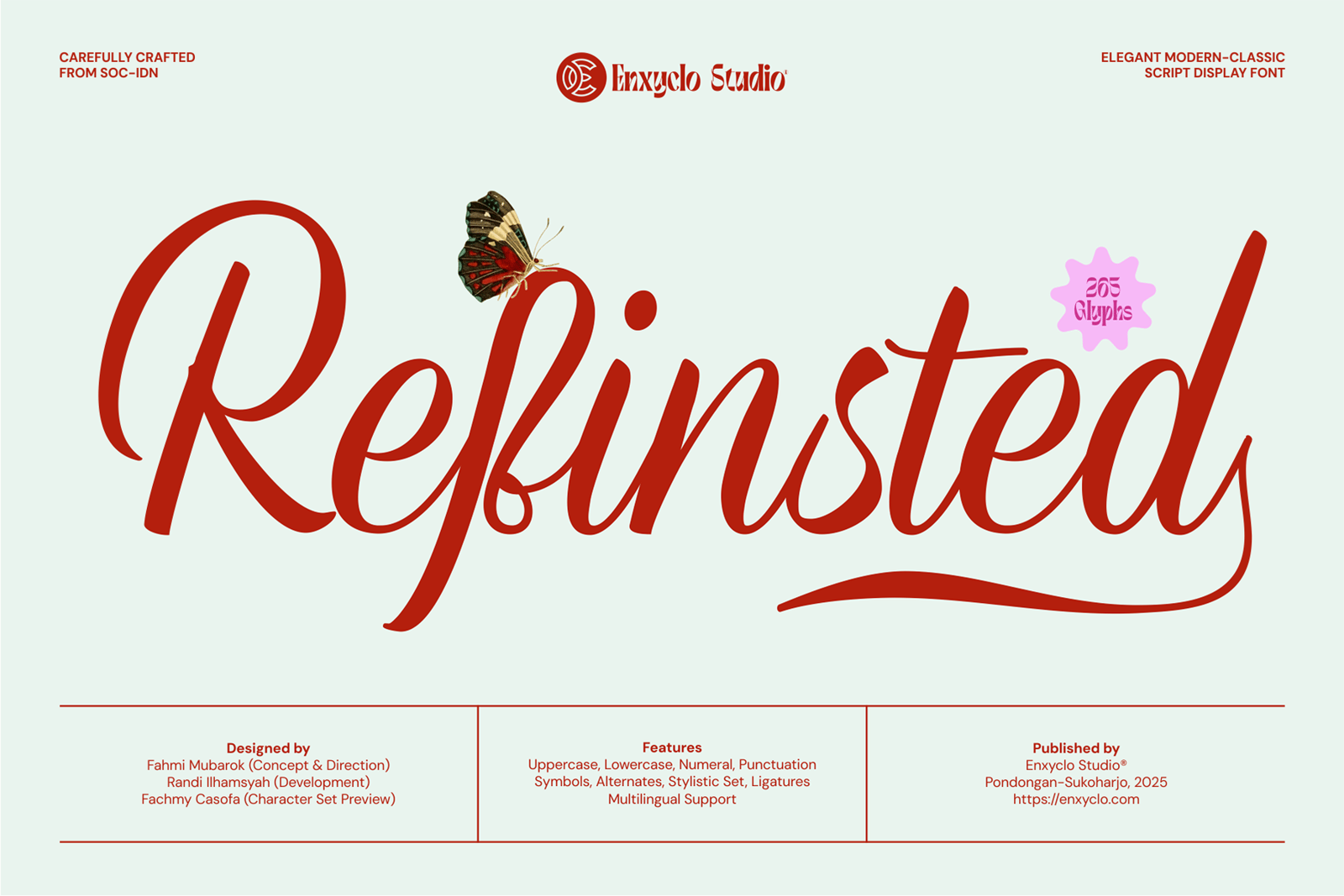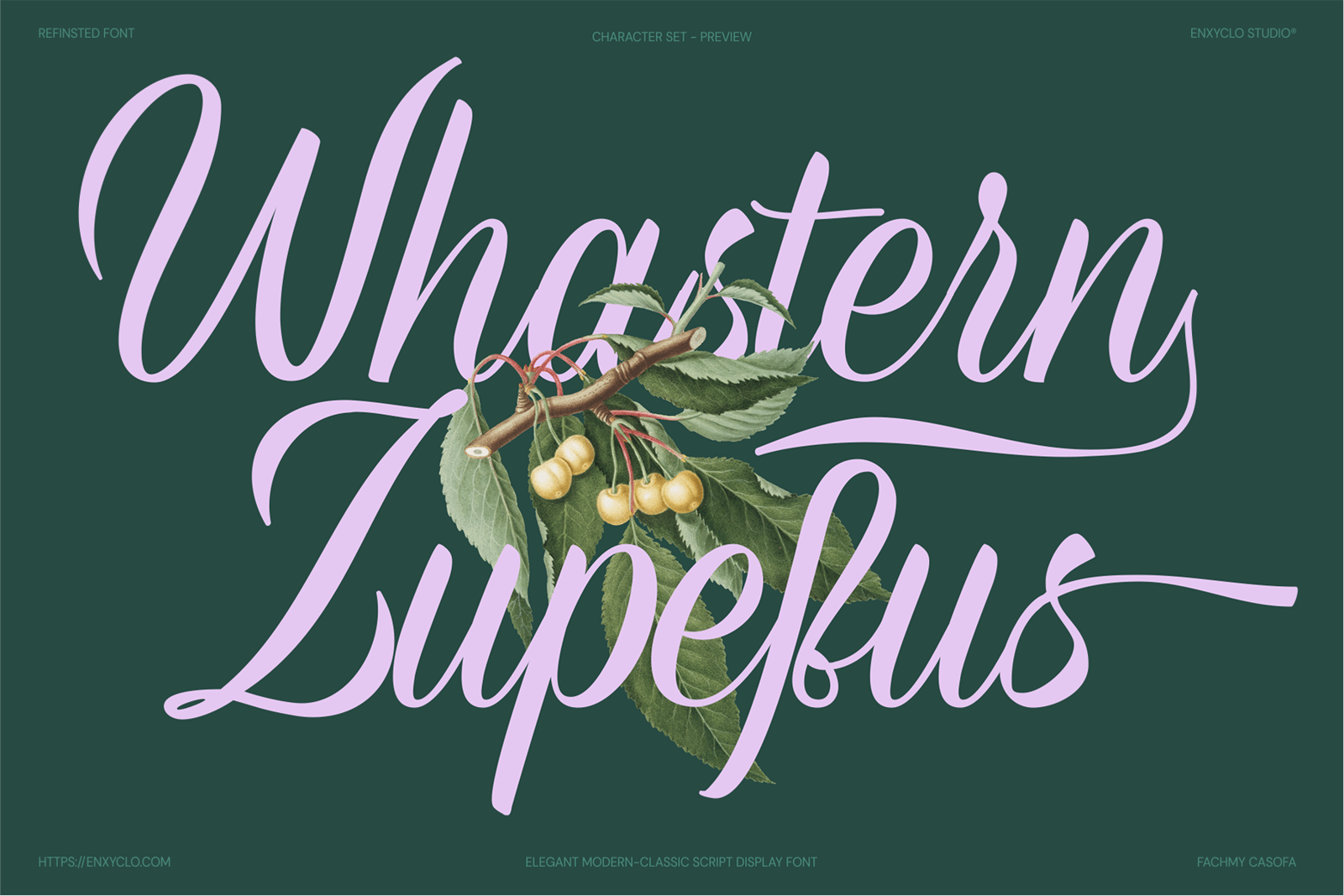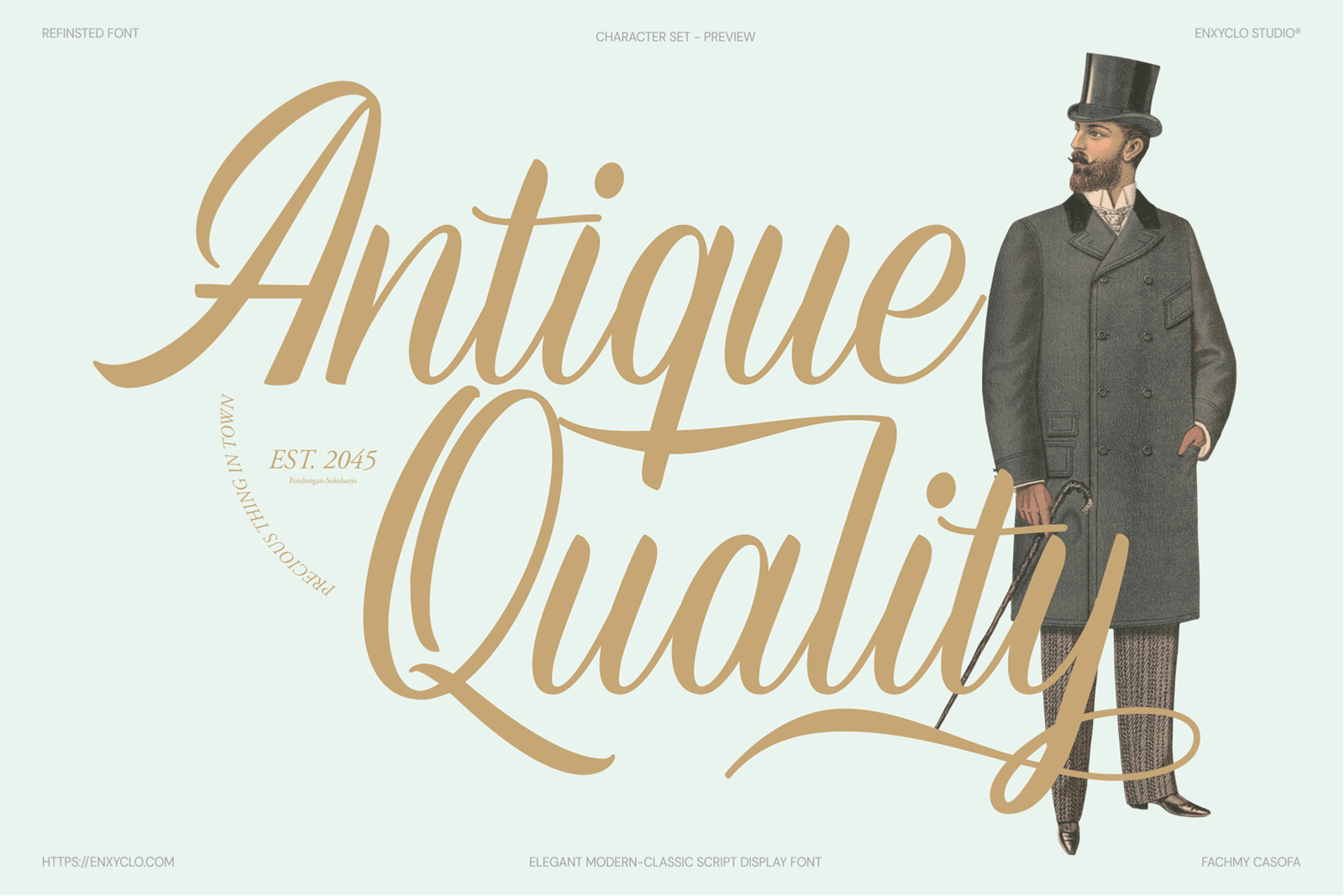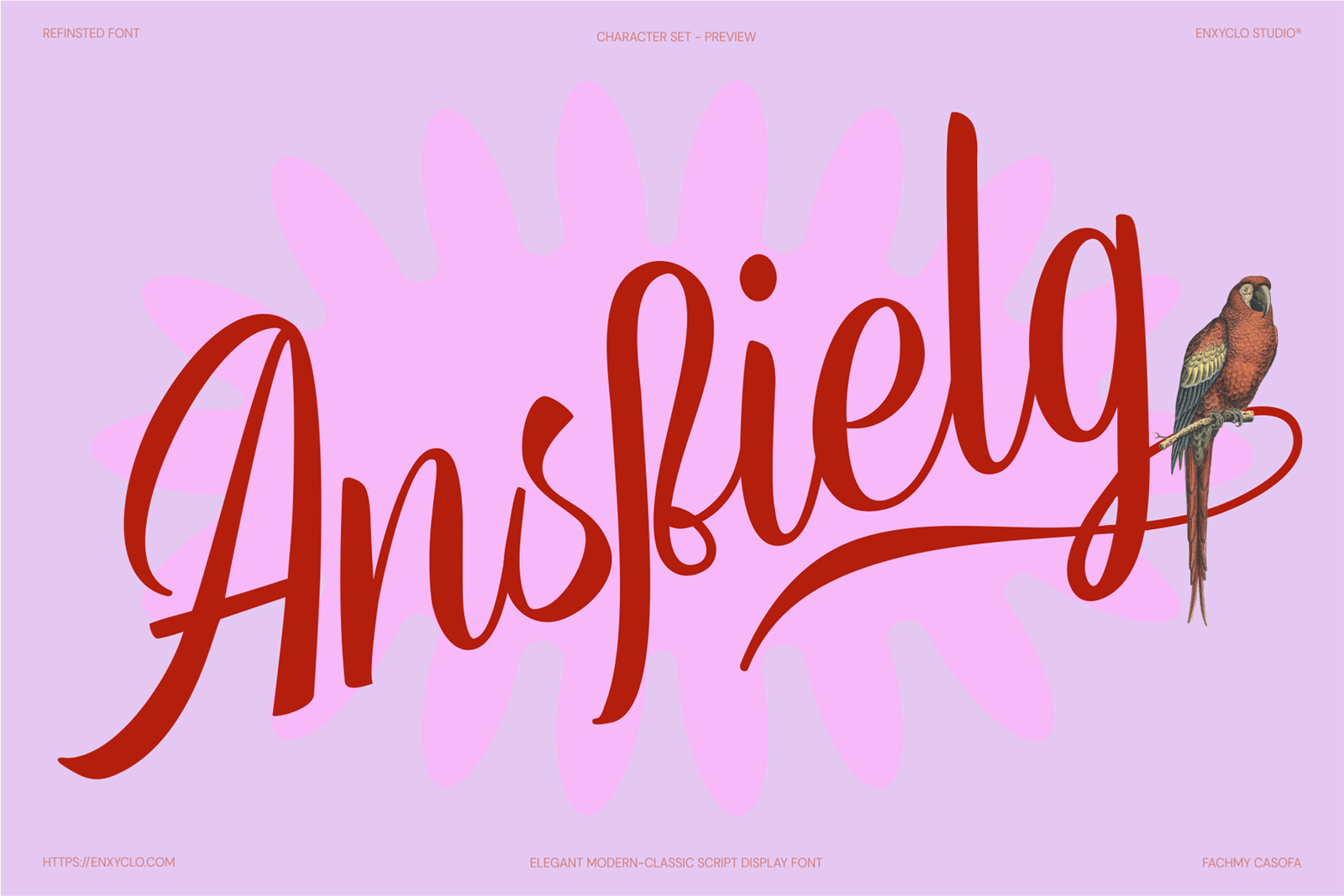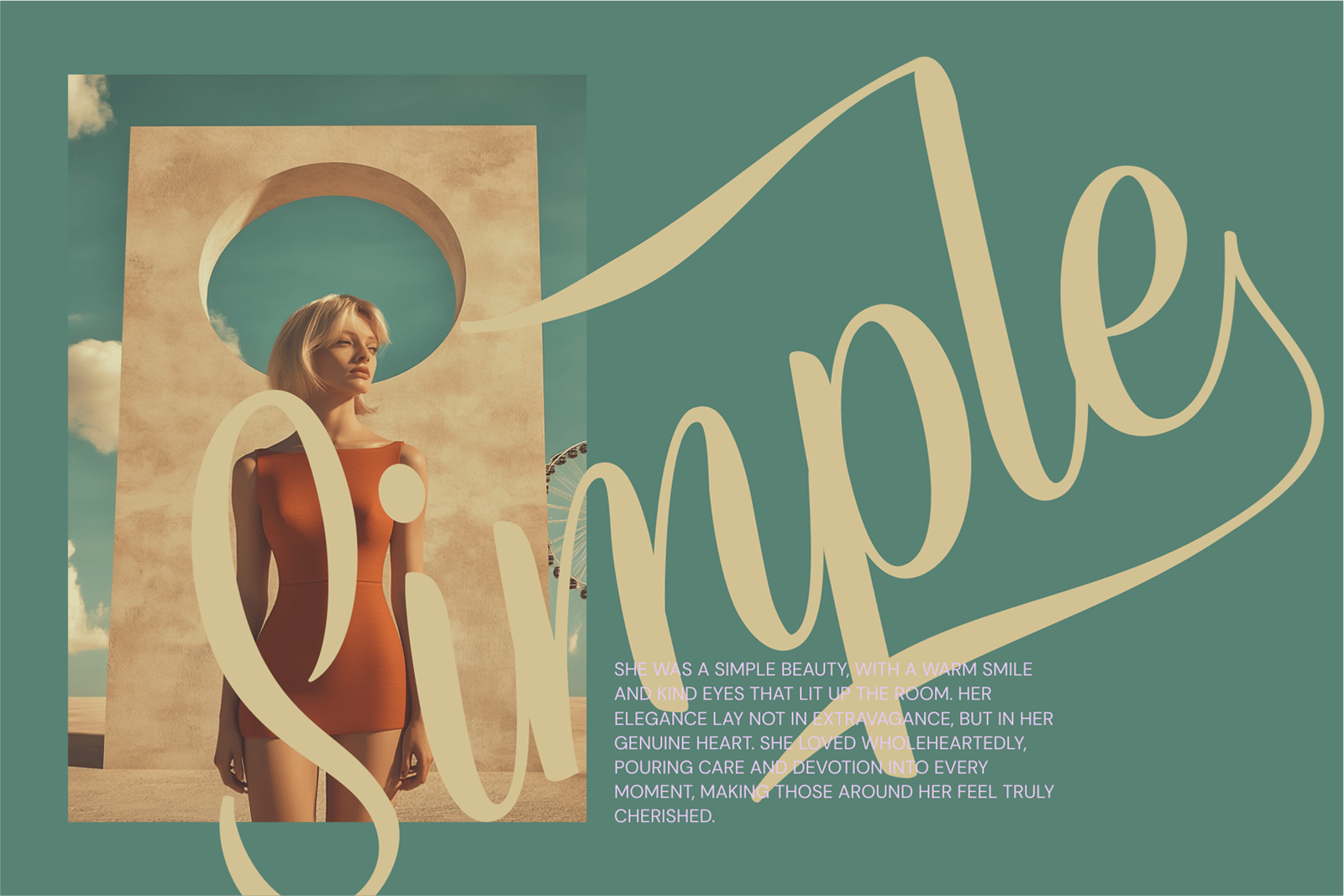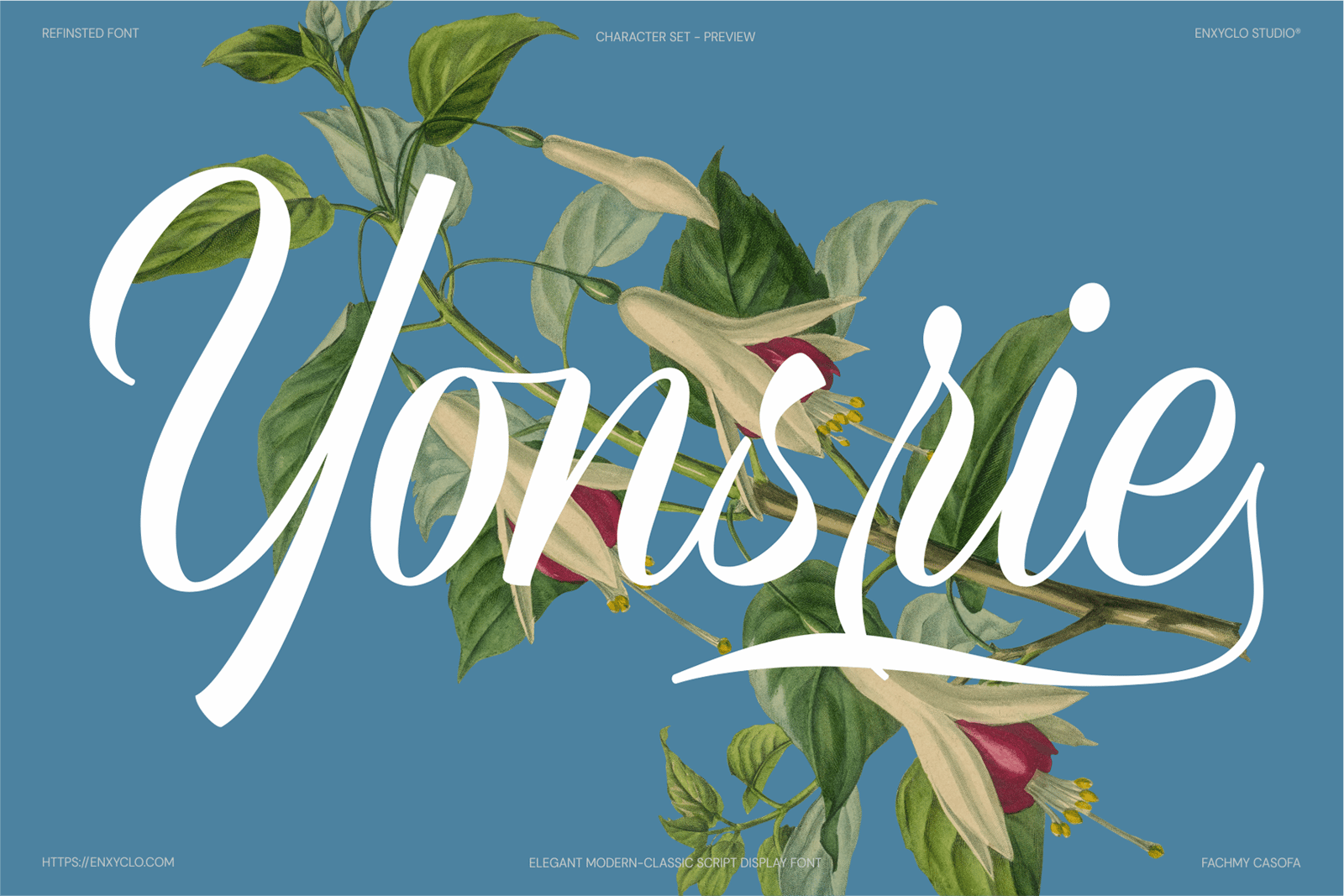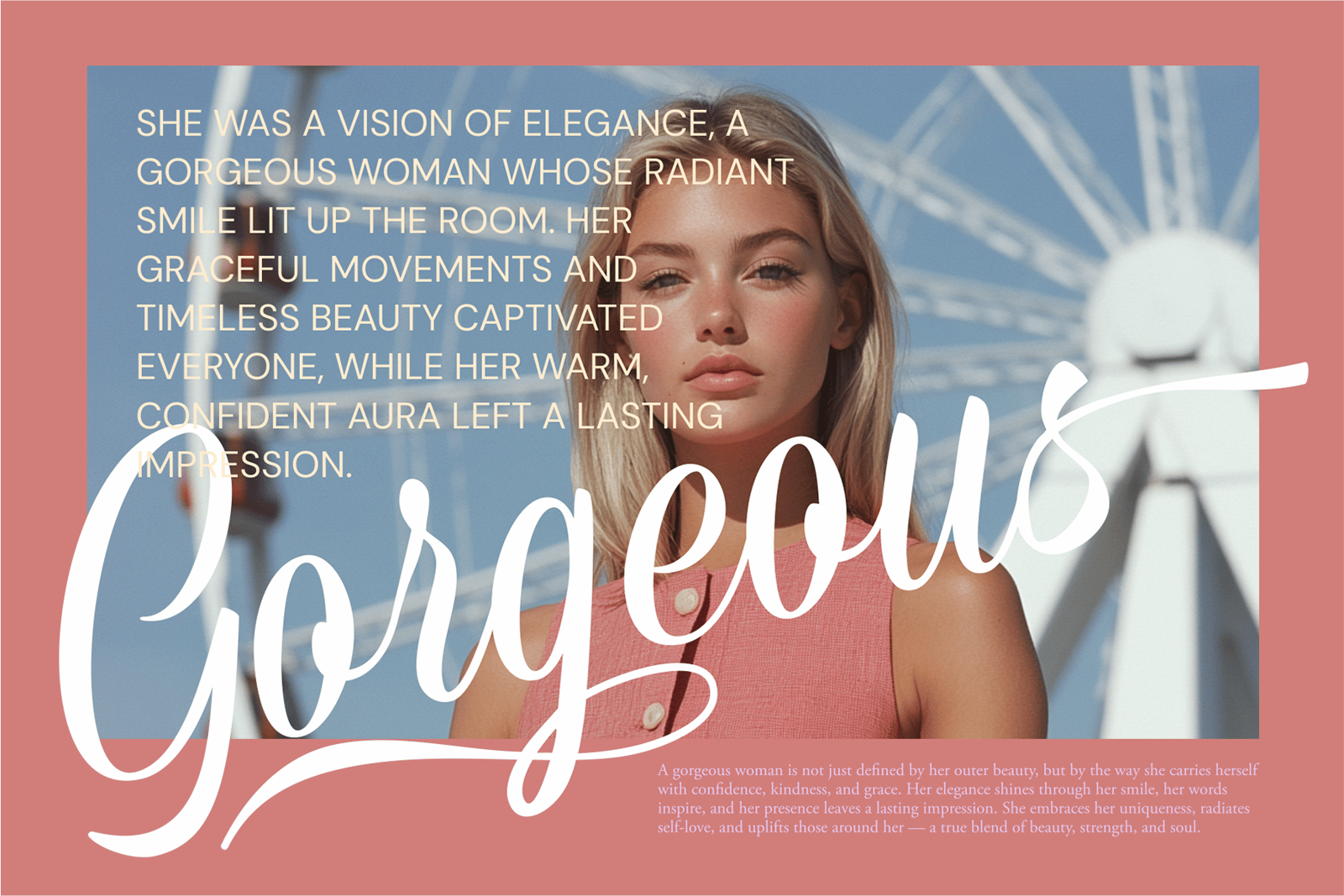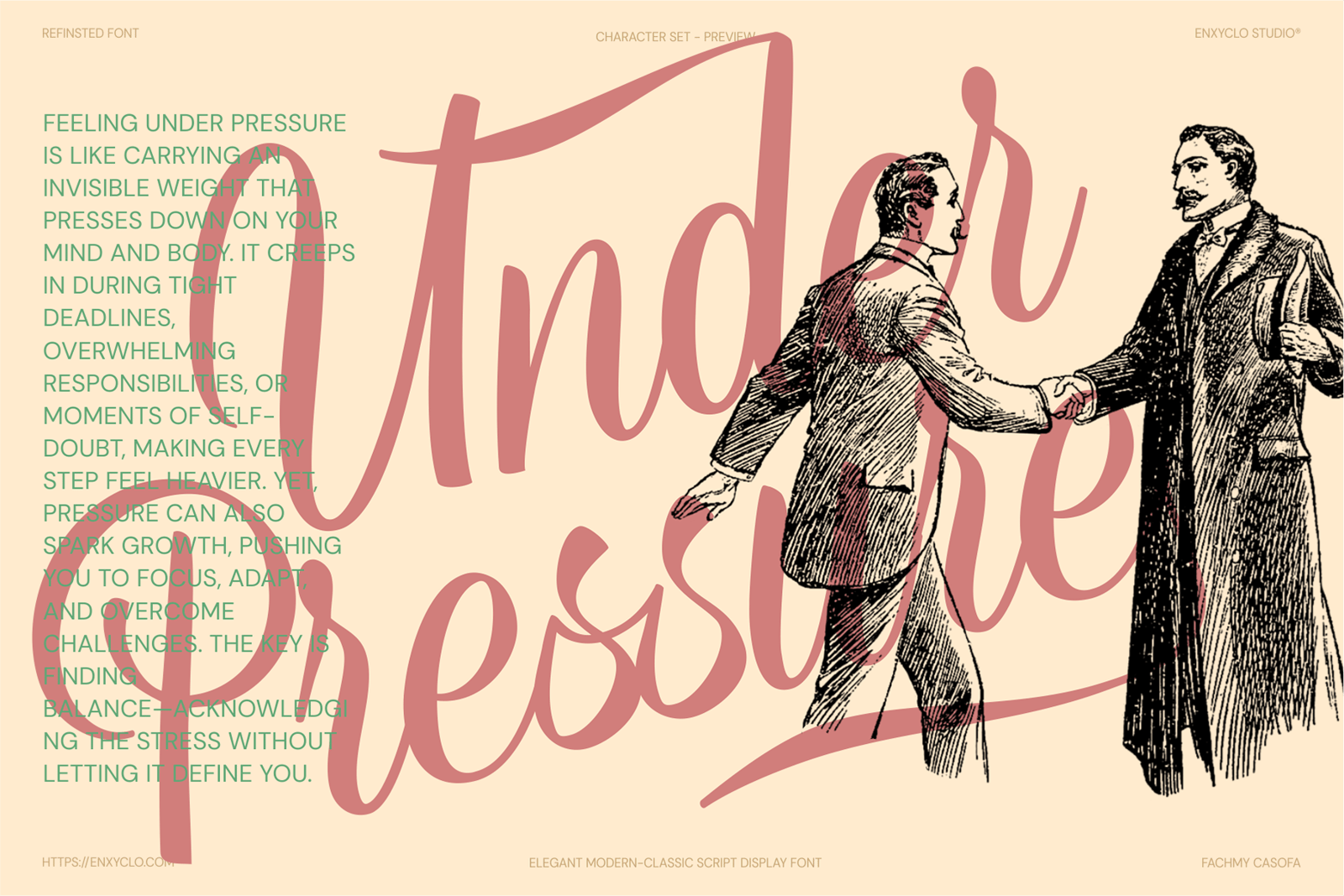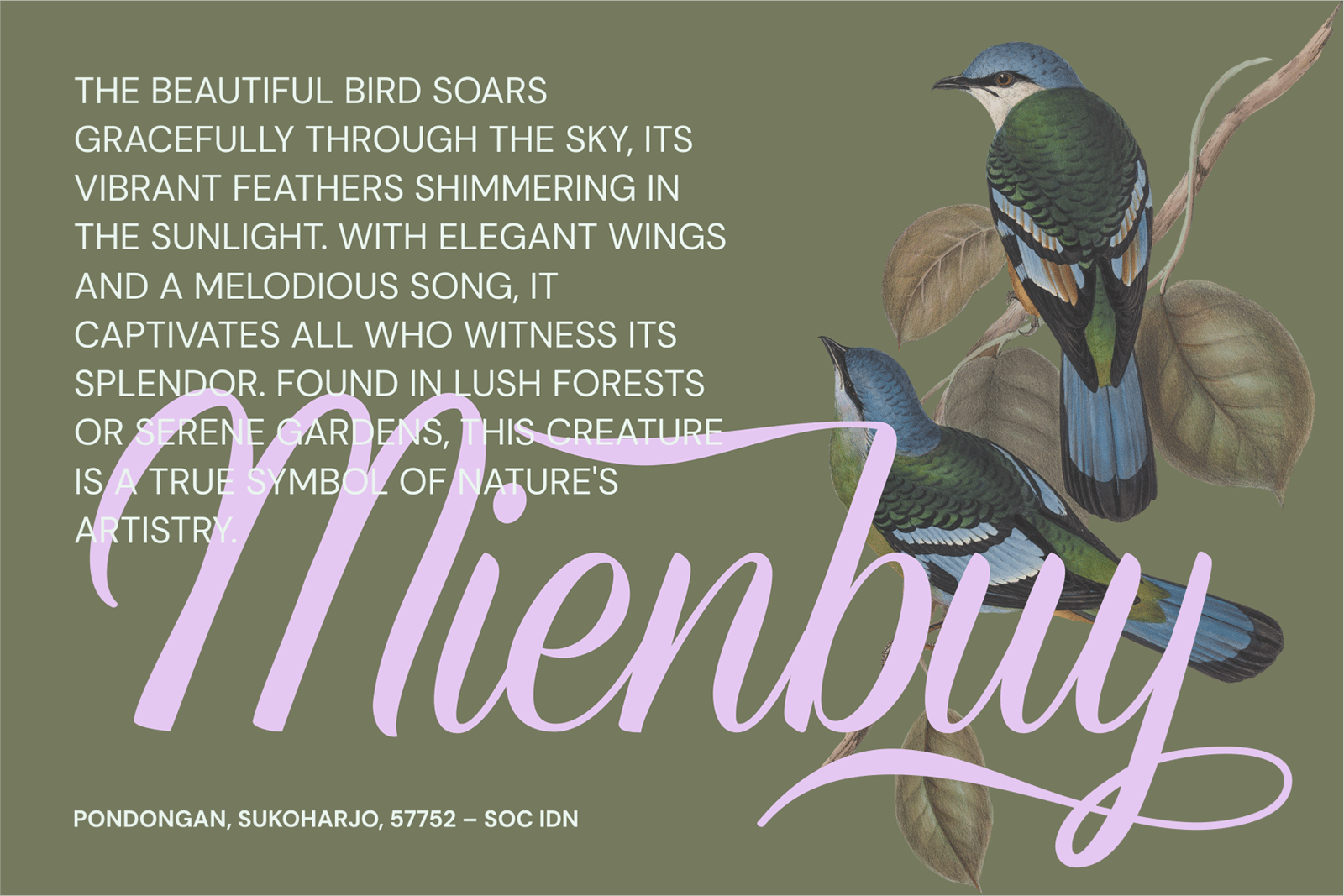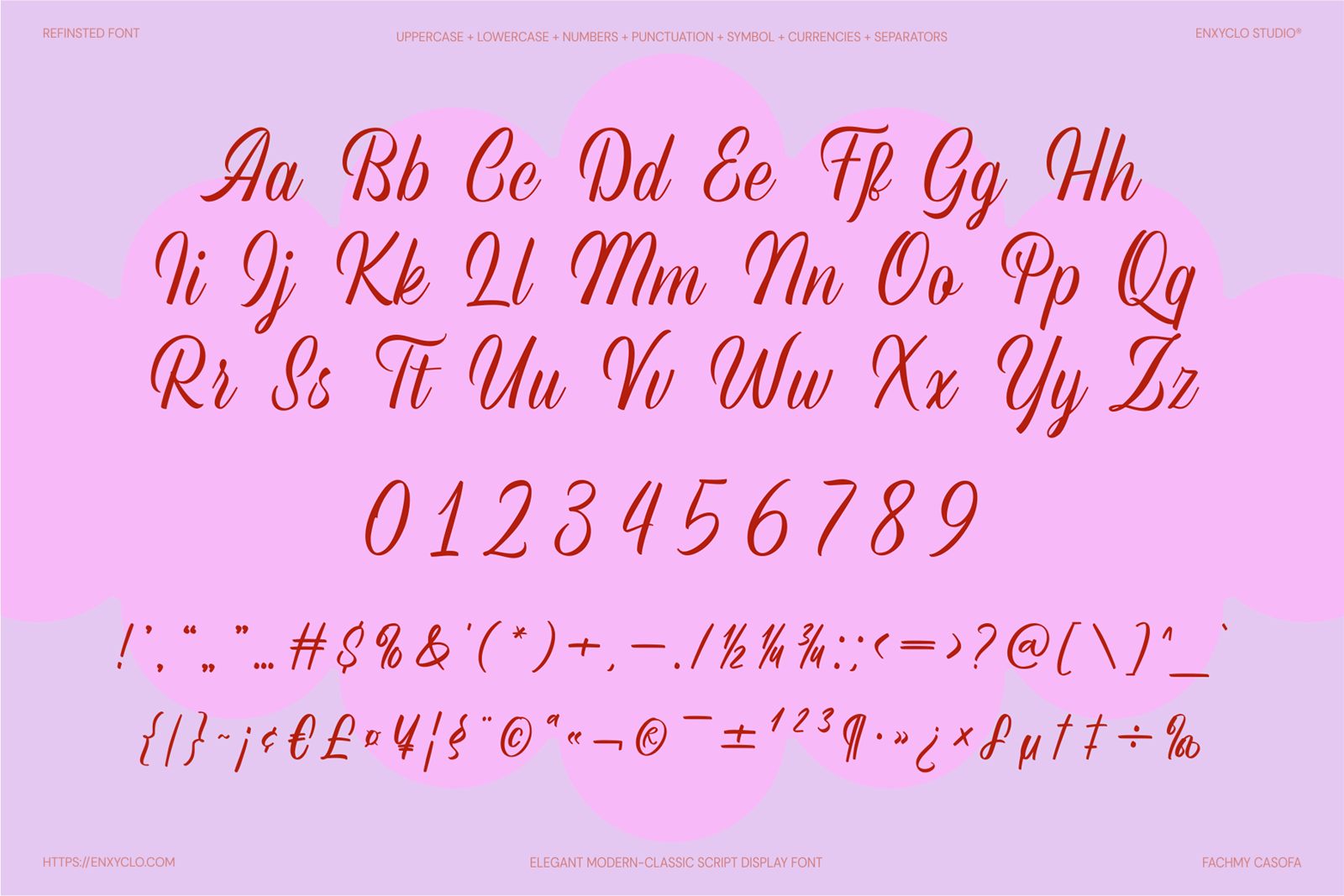
Refinsted — Elegant Script Calligraphy Font
REFINSTED is a timeless modern classic script font that captures the essence of luxury, elegance, and refined sophistication. Crafted with graceful curves and beautifully balanced strokes, this typeface blends the charm of classic calligraphic style with a modern luxurious touch. The result is a lavish and premium script font that feels rich, stylish, and effortlessly captivating. Designed for brands that seek beauty and distinction, REFINSTED transforms typography into an elegant visual signature. Its flowing script character creates a refined harmony between classic aesthetics and contemporary expression, making it ideal for logos, fashion brands, and premium visual identities. Every curve carries a sense of glamour and personality, allowing your designs to communicate elegance with confidence.
Inspired by the world of fashion, cosmetic, beauty, skincare, and boutique branding, REFINSTED delivers a luxurious aesthetic that enhances every detail. Whether used for premium packaging, editorial layouts, beauty campaigns, or sophisticated product branding, this font creates a rich atmosphere that feels aesthetic, polished, and timeless. More than just a script font, REFINSTED is designed to become a symbol of premium design and modern elegance—perfect for creators who want to build luxurious brands, glamorous visuals, and unforgettable experiences through sophisticated typography.
FEATURES
- 265 Unique Glyphs
- Stylistic Set 1-3
- 12 Special Ligatures
- Numeral, Punctuation & Symbols
PERFECT FOR
- Luxury Logo & Branding
- Fashion & Boutique Identity
- Beauty, Cosmetic & Skincare Packaging
- Premium Product Labels
- Glamour Advertising Campaigns
- Elegant Editorial & Magazine Design
- Signature Logos & Personal Branding
- Wedding Invitations & Luxury Stationery
- Social Media Branding
- High-End Visual Identity Design